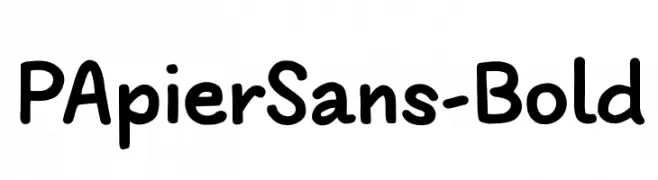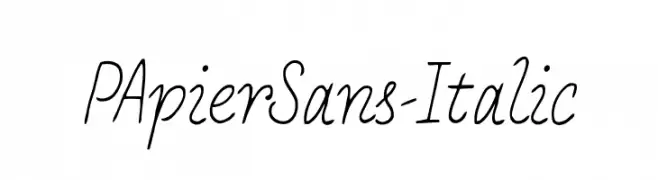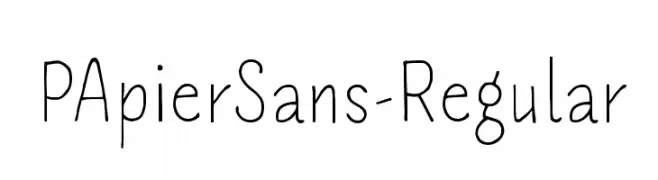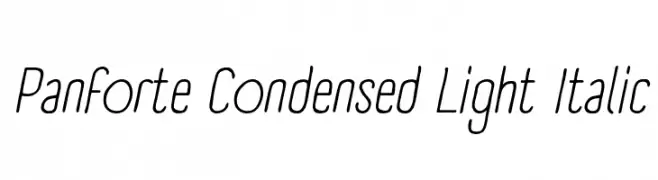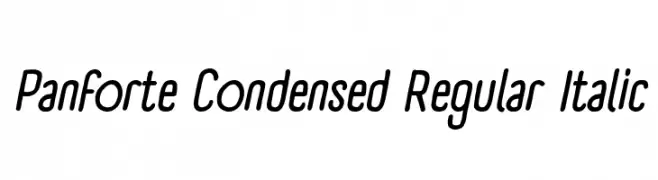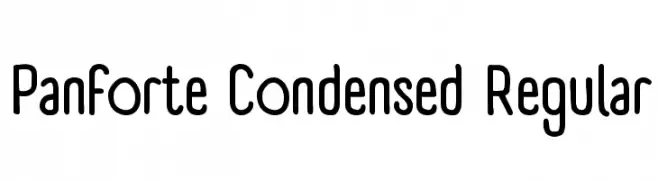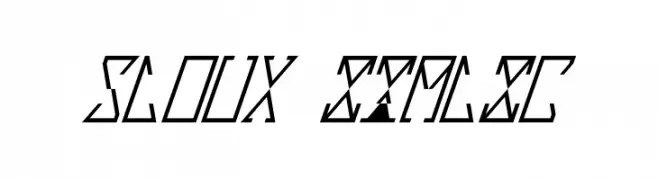
A sleek, condensed, light italic font with a modern and elegant style.
A modern, condensed font with a clean and streamlined appearance.
A modern, condensed italic font with uniform strokes and a sleek appearance.
A playful, bold font with rounded edges and a hand-drawn feel.
A fluid, elegant script font with an italic, handwritten style.
A playful, handwritten font with irregular strokes and a casual style.
A bold, geometric font with angular, blocky characters.
A bold, angular geometric font with a modern aesthetic.